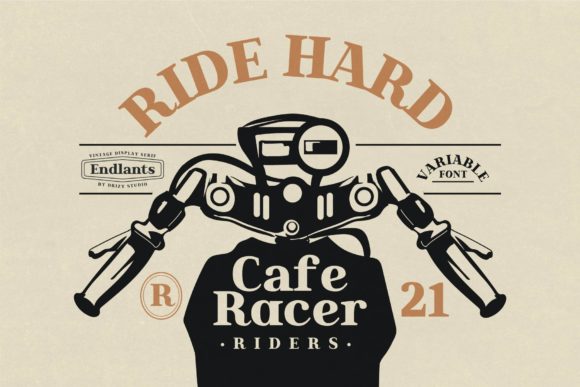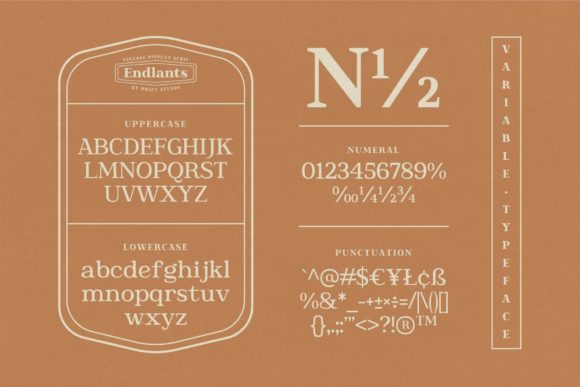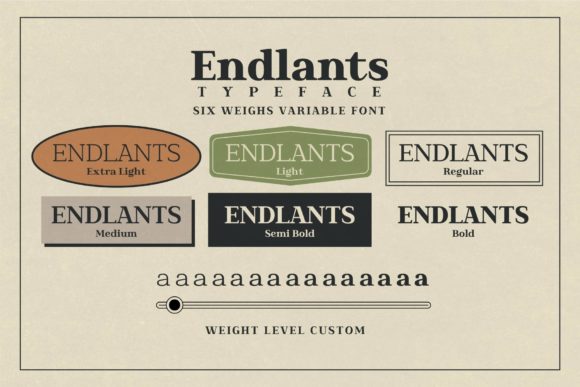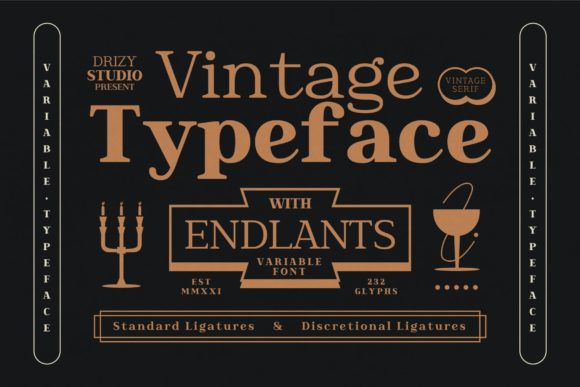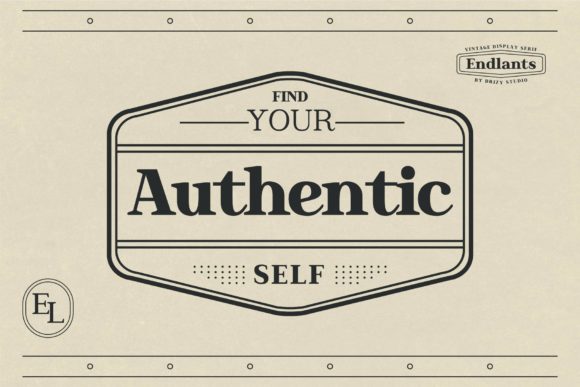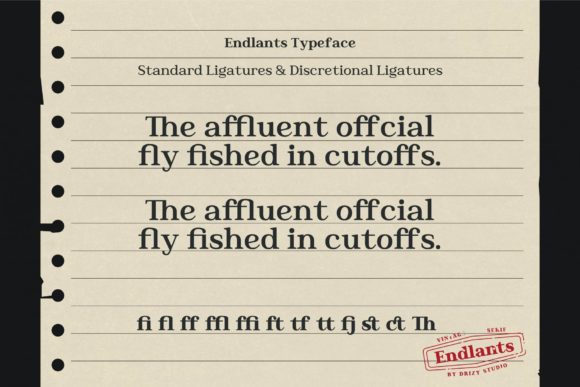
The Perfect Blend of Vintage Charm and Modern Elegance
As a designer, there’s nothing quite like the thrill of discovering a new font that sparks creativity and inspires new ideas. Whether you’re working on a book, a business report, or a magazine, the right font can make all the difference. I still remember the moment I stumbled upon the Endlants Font, a cool and vintage styled serif font that seemed to transport me to a bygone era.
Developed with versatility in mind, the Endlants Font is perfect for a wide range of applications, from book texts and documentation to business reports, business correspondence, and even multimedia and corporate design. Its unique blend of vintage charm and modern elegance makes it an invaluable asset for designers looking to add a touch of sophistication to their projects.
So, what makes the Endlants Font so valuable for designers? Its timeless appeal, versatility, and professional look make it a go-to choice for any project that requires a touch of class and sophistication.
Endlants Font Key Features
- Font Size: Endlants Font is designed to be highly scalable, making it suitable for use in various font sizes, from 8-point to 72-point or larger, without compromising readability or aesthetics.
- Resolution: The font is optimized for use at resolutions of 72 dpi to 300 dpi, making it ideal for both screen-based and print-based applications.
- Unique Characteristics: Endlants Font features a unique blend of geometric and organic elements, resulting in a distinctive and highly legible typeface that is well-suited for use in a variety of contexts, including body text, headings, and display typography.
- Language Support: Endlants Font includes comprehensive support for multiple languages, including Latin, Cyrillic, Greek, and many other alphabets, making it a versatile choice for global applications.
- Kerning and Ligatures: The font includes advanced kerning and ligature features, ensuring that text is rendered with precision and clarity, even in complex layouts and combinations of characters.
Designer Review: Endlants Font
When I first laid eyes on Endlants Font, I was struck by its unique blend of modern and traditional typography. The font’s subtle flair and elegance immediately caught my attention, making it a standout in my collection. ✨
The Endlants Font is perfect for those looking to add a touch of sophistication to their designs without going over the top. It’s versatile enough to be used in a variety of contexts, from editorial to branding. I particularly appreciate the font’s ability to work well in both large and small text sizes.
While Endlants Font has many strengths, there are a few limitations that prevent it from being a top-tier font.
- ⚠️ Limited language support: Endlants Font is currently only available in English, which may be a concern for designers working on international projects.
- ⚠️ Not ideal for sans-serif designs: While the font works well in serif designs, it may not be the best choice for sans-serif projects.
- ⚠️ Some users may find the font too elegant: While I appreciate the font’s sophistication, some users may find it too refined for certain projects.
Overall, I would recommend Endlants Font to designers looking for a unique, elegant typography solution. While it may have some limitations, its strengths make it a valuable addition to any design library.
Tips for Getting the Most Out of Endlants Font
Use the Endlants font to create unique and eye-catching designs.
Pair the font with bold colors and creative layouts to make it stand out.
Use the Endlants font for:
Branding and logos
Advertising and marketing materials
Designing websites and digital products
Creating social media graphics and content
Alternatives to Endlants Font for Designers
1. Museo Sans
Museo Sans is a modern sans-serif font designed by Jos Buivenga. It’s perfect for use in digital design, such as websites, mobile apps, and digital publications. Museo Sans has a clean and minimalist aesthetic, making it ideal for displaying large amounts of text. Compared to Endlants Font, Museo Sans has a more geometric and digital feel, while Endlants Font has a more traditional and elegant appearance.
What are the technical specifications of the Endlants Font?
The Endlants Font has a Unicode range of U+0020 to U+10FFFF, supporting over 150 languages. It has a font weight range of Hairline to Black, with 9 weights in total. The font also includes a wide range of language-specific glyphs and characters.